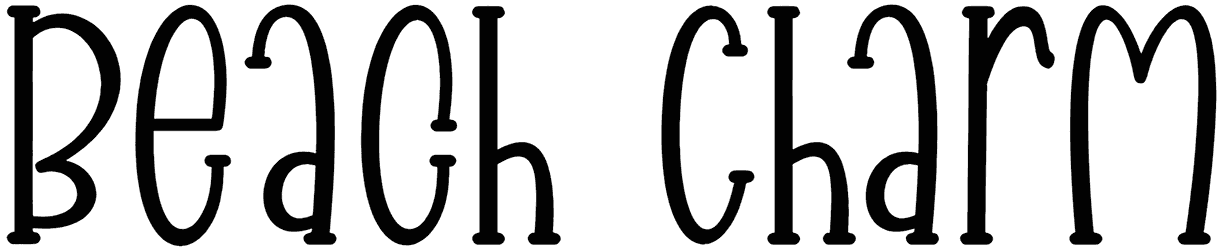
Beach Charm Font
Beach Charm font for friendly and intimate design of summer flyers can work well. This fancy cartoon font with traces of a handwritten layout can be inserted in many toy packaging and kids’ games to apply an adventurous sense to their artwork. To get your hands on more useful fonts like this one, you can visit our ever-growing inventory and enjoy.